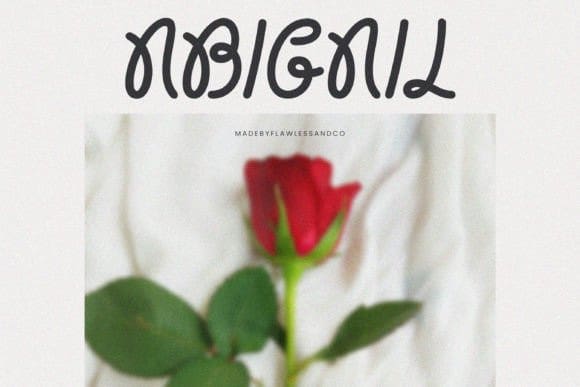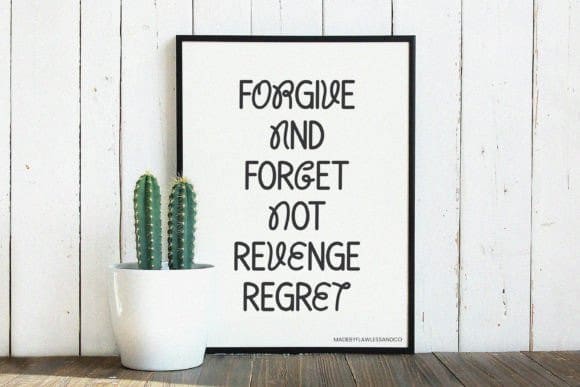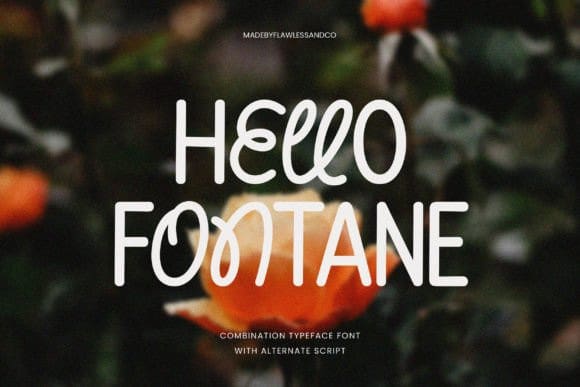
Hello Fontane Font
Hello Fontane Font a font combination sans serif with alternate script. Experience the perfect harmony of modernity and personality with “Hello Fontane,” a unique combination font that pairs a sleek sans serif typeface with an alternate script full of handwritten charm. Whether you’re crafting invitations, branding materials, or social media graphics, HelloFontane offers the versatility and style to elevate your designs to new heights.